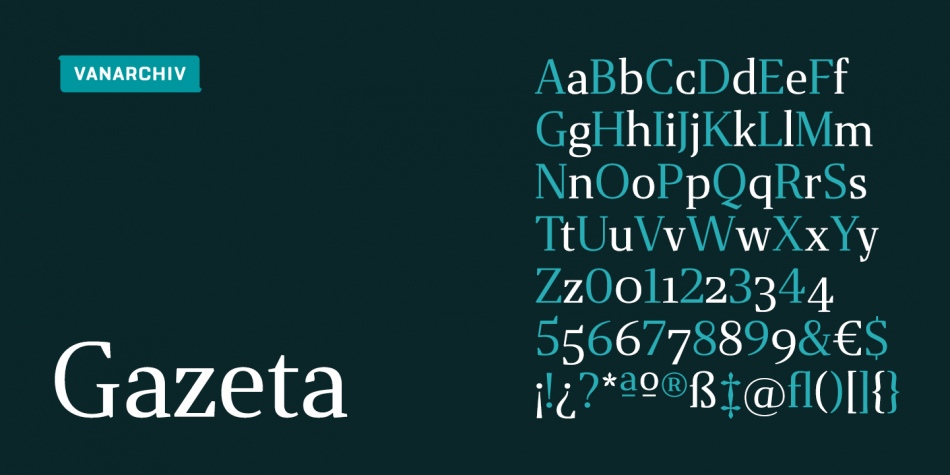
Gazeta Font
Gazeta Font is perfect for newspaper headlines, magazine editorial layouts, news website design, journalistic brand identities, publishing house materials, media company communications, press release formatting, news bulletin graphics, and professional journalism presentations.
What makes Gazeta Font exciting is its authentic embodiment of classic newspaper typography that captures the essential spirit of trusted journalism through clean, authoritative letterforms designed for maximum readability and editorial impact. The font features traditional newspaper proportions with contemporary refinements that ensure excellent legibility across all media while maintaining the professional credibility and institutional trust that defines quality journalism. Its balanced character and news-optimized design make it perfect for media organizations that need to communicate editorial authority, information reliability, and the timeless appeal of professional journalism in today's rapidly evolving news landscape.
Gazeta Font family includes comprehensive editorial weights such as Light, Regular, Medium, and Bold variations, often featuring news-optimized character sets and journalistic decorative elements. The family may include press symbols, editorial ornaments, and newspaper-specific alternates that enhance the font's media aesthetic, providing designers with complete options for creating authoritative typographic compositions that honor journalism traditions while meeting modern publishing demands.